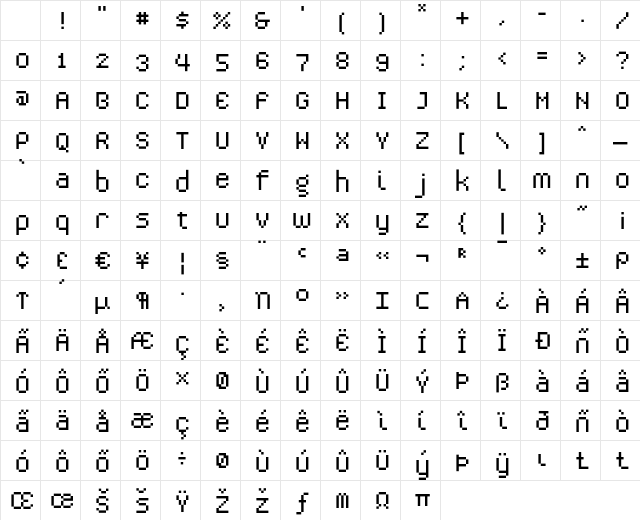
CALIPER 333TC Free Font
CALIPER 333TC
Design Context for CALIPER
CALIPER is a composed and adaptable typeface that performs quietly and consistently across a wide range of design contexts.